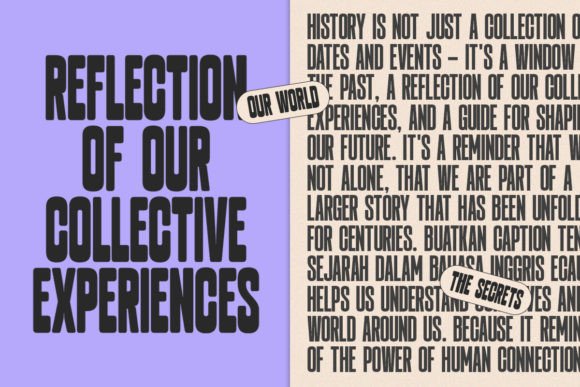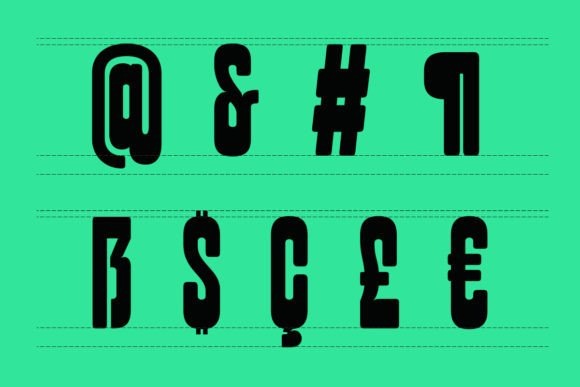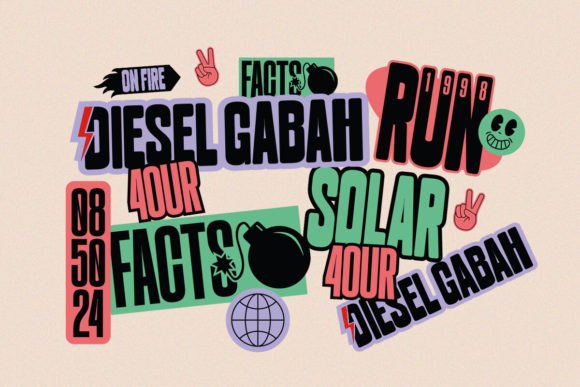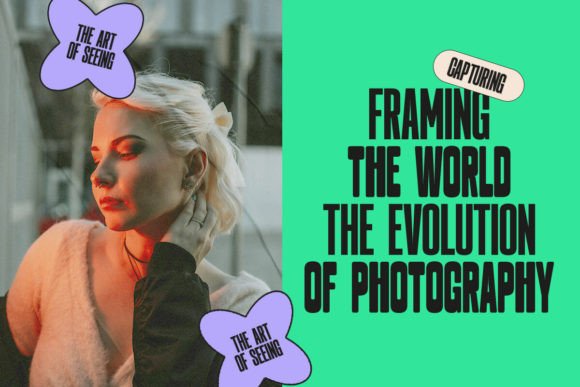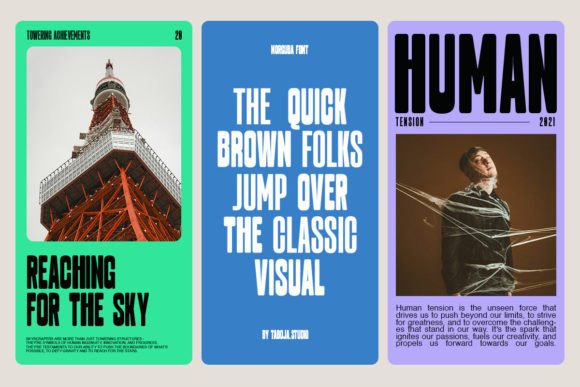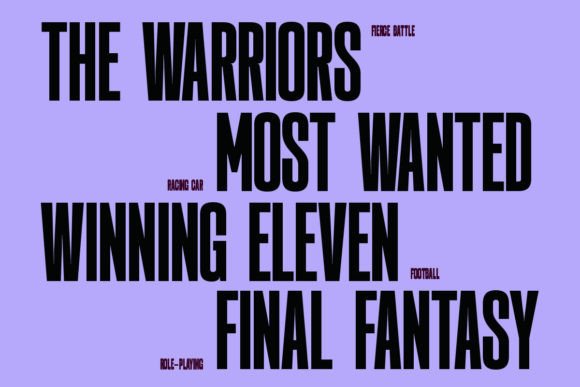
Introduction to Norguba Font
Have you ever been working on a creative project, pouring your heart and soul into it, only to be stuck on finding the perfect font to bring it all together? That’s where the Norguba Font comes in – a game-changing addition to any designer’s toolkit.
With its unique blend of elegance and awkwardness, this display-type font is sure to add a touch of personality to your designs. Whether you’re working on a high-quality brand identity, a packaging project, or a motion graphic that demands attention, Norguba Font has got you covered. Its versatility and dynamic features make it an invaluable resource for designers seeking to create truly authentic and engaging visual experiences.
Key Features of Norguba Font
- High-quality design with a unique, creative style suitable for a wide range of projects, from posters to digital designs.
- Designed with a high level of detail and precision, ensuring a crisp and clear appearance at resolutions up to 300 DPI.
- Perfect for designers looking for a distinctive and creative font to add a unique touch to their projects.
Honest Review: Norguba Font
As a designer, I’m always on the lookout for high-quality design resources that can elevate my creative projects. Recently, I had the chance to work with the Norguba Font, and I’m excited to share my honest review.
Here are some things that worked well for me: ✨
- Unique aesthetic: The Norguba Font has a distinctive look that sets it apart from other sans-serif fonts.
- Wide range of applications: I found the font to be versatile and suitable for various design projects, from logos to body text.
However, I did encounter some limitations: ⚠️
- Transparent background issues: In some cases, I experienced issues with the font’s transparent background, which can be a problem for designers who need a seamless integration.
- Limited language support: I noticed that the font’s language support is limited, which may be a concern for designers working on projects that require multiple languages.
Overall, I’m impressed with the Norguba Font’s potential, but I do hope the developers address some of the limitations I mentioned. With some tweaks, I believe this font could be a game-changer for designers.
To get the most out of the Norguba Font, use it with a transparent background to create a clean and modern look. This font is perfect for creating eye-catching headings and titles.
The Norguba Font is ideal for a variety of creative projects, including branding, marketing materials, and digital designs. Its high-quality design and free download make it a valuable resource for designers of all levels.